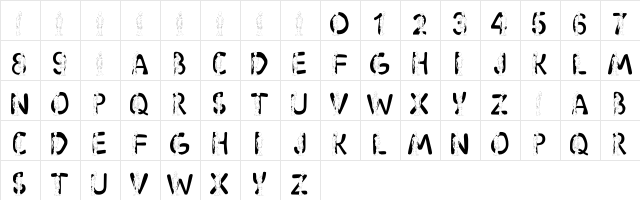
LMS Shaggy Regular
Design Context for LMS Shaggy
LMS Shaggy is a composed and adaptable typeface that performs quietly and consistently across a wide range of design contexts.
Pro Tip: Use LMS Shaggy in both headline and body roles to test its range before committing to a single application.